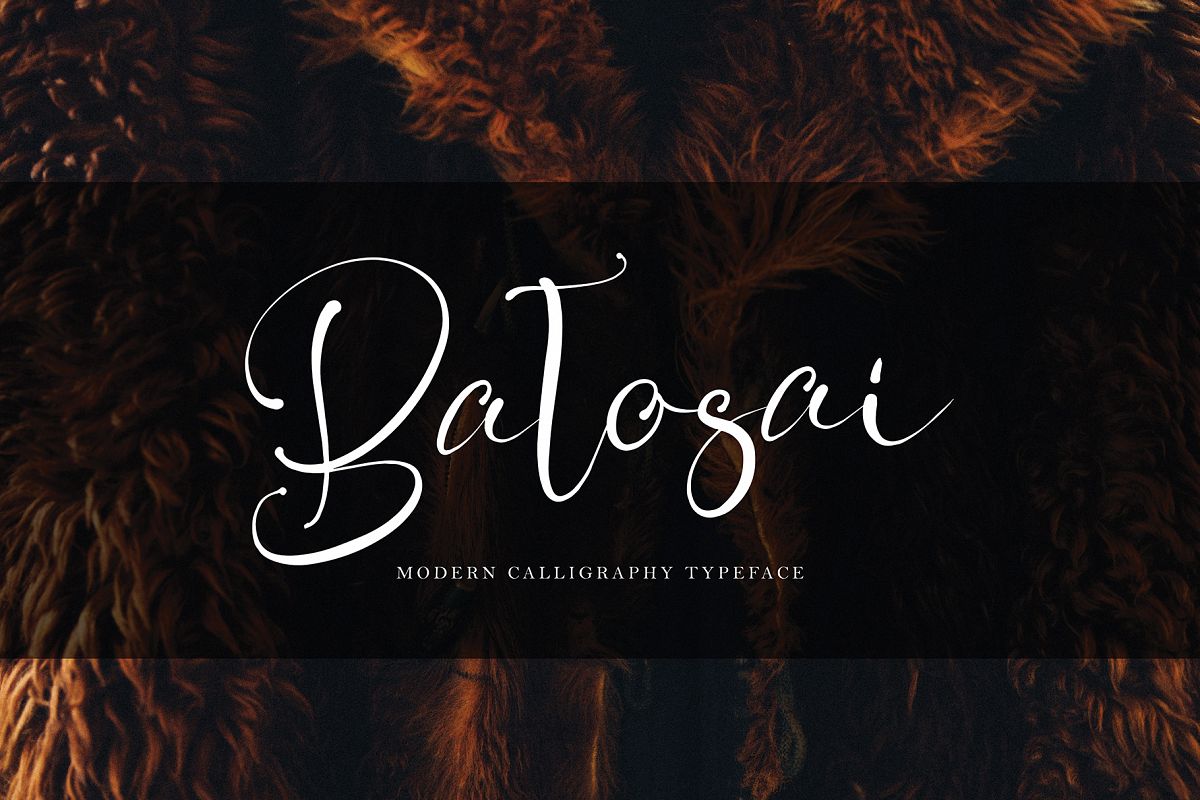
Batosai
Batosai handwritten font with new style, this font will perfect for many different project ex: quotes, logo, blog header, poster, banding, fashion, apparel, letter, invitation, stationery, etc...
Batosai